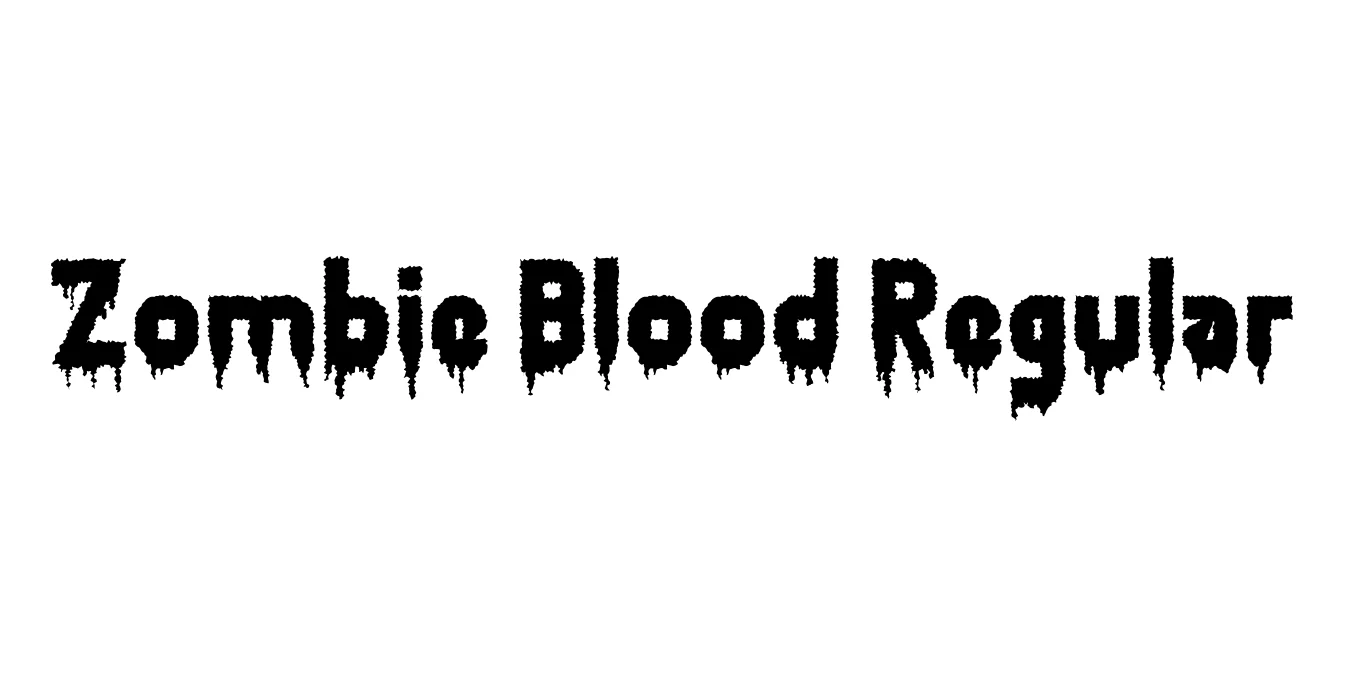
Zombie Blood Regular
Designed by Galdino Otten
| Category | Horror Display |
| Designer | Galdino Otten |
Zombie Blood Regular is a visceral, decorative typeface specifically designed to evoke feelings of terror and suspense. It features irregular, dripping letterforms that mimic the appearance of wet paint or fresh blood, making it a staple for the horror genre. Each character is crafted with an intentional lack of symmetry and a gritty texture, enhancing the chaotic and macabre aesthetic required for high-impact visual storytelling.
This typeface is exceptionally well-suited for Halloween-themed projects, horror movie posters, and graphic novels. Its bold, erratic stroke weights make it a standout choice for titles that need to command attention and instill a sense of dread. Whether used for digital media or print, its distinctive gore-inspired design ensures that any project captures the essence of the supernatural and the grotesque.
Zombie Blood Regular Best Uses
Ideal for creating chilling and suspenseful cinematic titles.
Adds a macabre and festive touch to seasonal party decorations.
Perfect for dark-themed illustrations and zombie-centric storytelling.
Great for edgy t-shirt prints and streetwear branding.